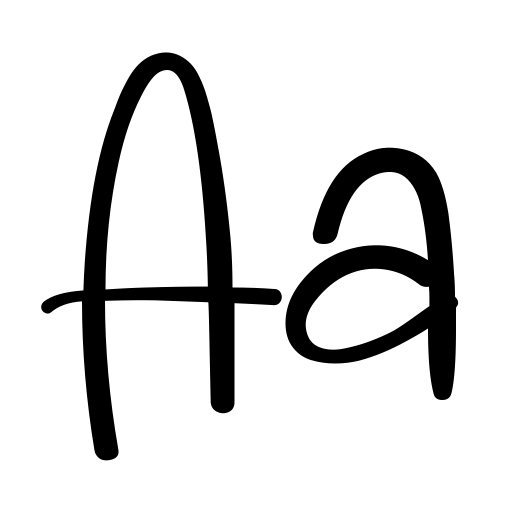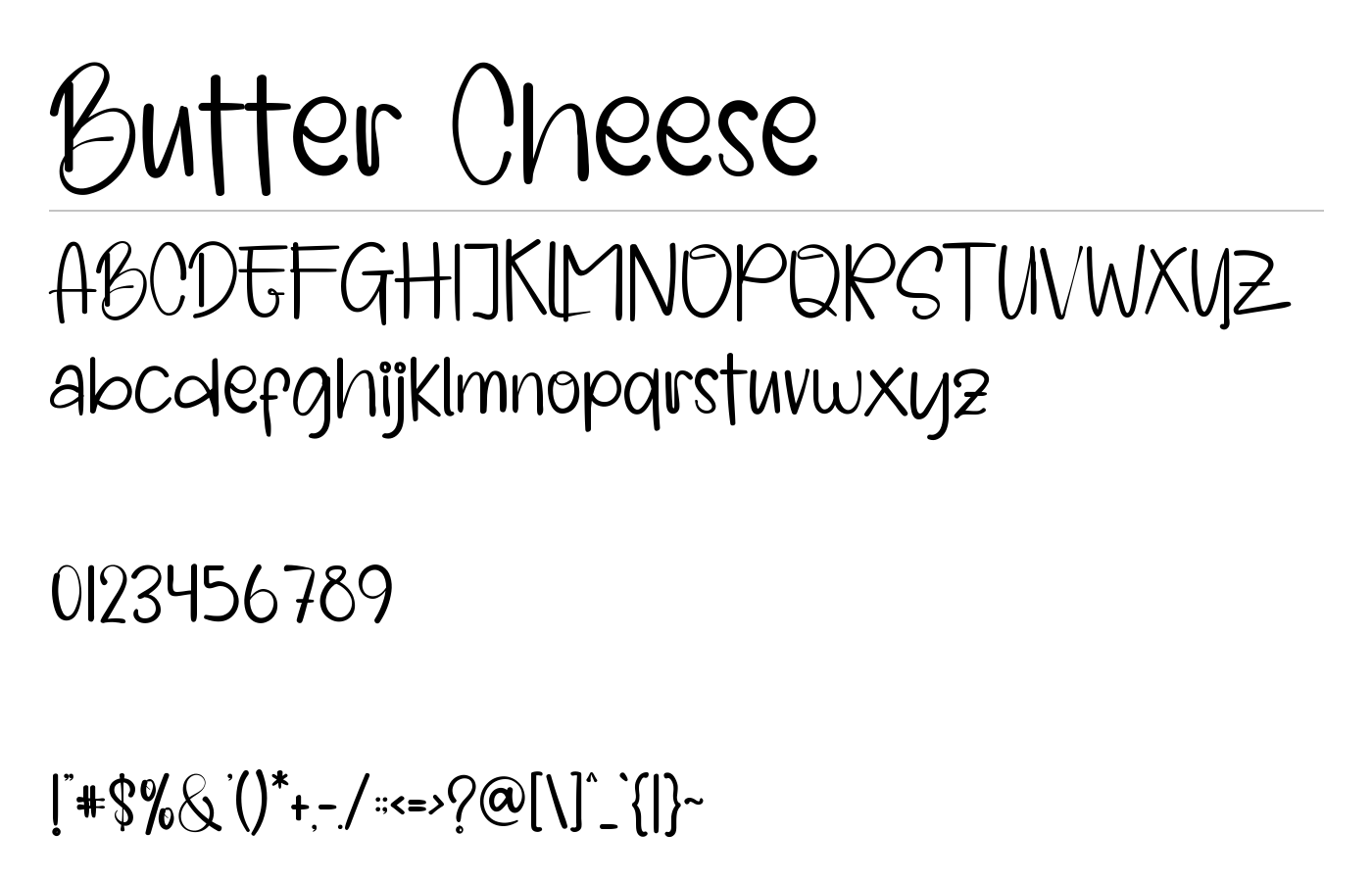
Butter Cheese is a playful and casual handwritten sans serif font with a light weight and tall, narrow letterforms. Its friendly, slightly quirky character with rounded shapes and irregular strokes makes it perfect for informal designs like children’s books, greeting cards, or fun branding projects that want a warm, approachable vibe. This font works best for headlines and display use where its unique personality can truly shine.
Butter Cheese Font